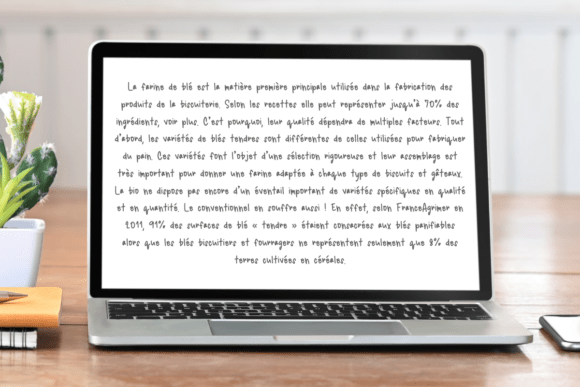
Introducing Study Buddy Font: Your Perfect Companion for Note-Taking and School Projects
In the world of digital learning and organization, having the right tools can make all the difference. One often overlooked yet crucial element is the font used for note-taking, digital planning, and school projects. A good font can enhance readability, improve comprehension, and even make studying more enjoyable. This is where the Study Buddy Font comes in โ a clean and casual handwritten font designed to be your perfect companion for all your academic needs.
What is Study Buddy Font?
Study Buddy is a clean and casual handwritten font, designed to be your perfect companion for note-taking, digital planning, and school projects. Its neat letterforms and soft curves give a friendly, approachable feelโjust like a real study buddy!
Benefits of Using Study Buddy Font
- Enhanced Readability: The clean and clear design of Study Buddy Font makes it easy to read, even for extended periods.
- Improved Comprehension: The font’s friendly and approachable feel can help reduce study stress and improve focus.
- Versatility: Study Buddy Font is perfect for note-taking, digital planning, and school projects, making it a versatile addition to your study toolkit.
- Professional Look: Despite its casual feel, Study Buddy Font is polished enough to give your work a professional appearance.
Key Features of Study Buddy Font
- Clean and Casual Design: Study Buddy Font boasts a clean and casual design, making it perfect for handwritten notes and digital planning.
- Neat Letterforms: The font’s neat letterforms ensure that your work looks organized and easy to read.
- Soft Curves: The soft curves of Study Buddy Font give it a friendly and approachable feel.
- Handwritten Style: The font’s handwritten style adds a personal touch to your work, making it more engaging and enjoyable to read.
How to Use Study Buddy Font
Study Buddy Font can be used in a variety of ways to enhance your study experience. Here are a few suggestions:
- Note-Taking: Use Study Buddy Font to take notes during lectures or while reading. Its clean design and clear letterforms make it easy to review and reference later.
- Digital Planning: Add a personal touch to your digital planners with Study Buddy Font. Its friendly feel and versatile design make it perfect for creating custom planners and organizers.
- School Projects: Use Study Buddy Font to add a professional yet approachable touch to your school projects. Its polished design and clear letterforms ensure that your work stands out.
What Users Say About Study Buddy Font
Study Buddy Font vs. Other Fonts
So, what sets Study Buddy Font apart from other fonts on the market? Here are a few key differences:
- Clean Design: Unlike some fonts that can be overly ornate or difficult to read, Study Buddy Font boasts a clean and clear design.
- Friendly Feel: Study Buddy Font has a unique friendly feel that sets it apart from more formal fonts.
- Versatility: Study Buddy Font is versatile enough to be used for a variety of applications, from note-taking to digital planning.
In conclusion, Study Buddy Font is a clean and casual handwritten font designed to be your perfect companion for note-taking, digital planning, and school projects. Its neat letterforms and soft curves give a friendly, approachable feelโjust like a real study buddy! With its enhanced readability, improved comprehension, and versatility, Study Buddy Font is the perfect addition to your study toolkit.